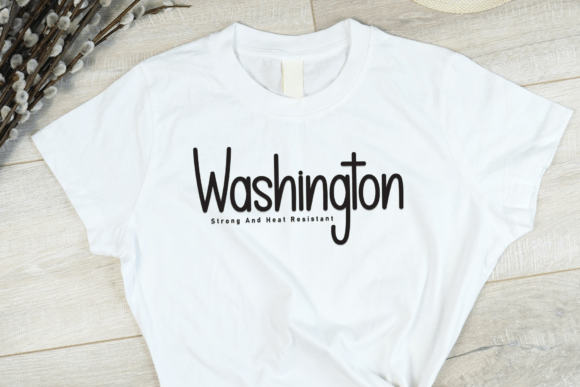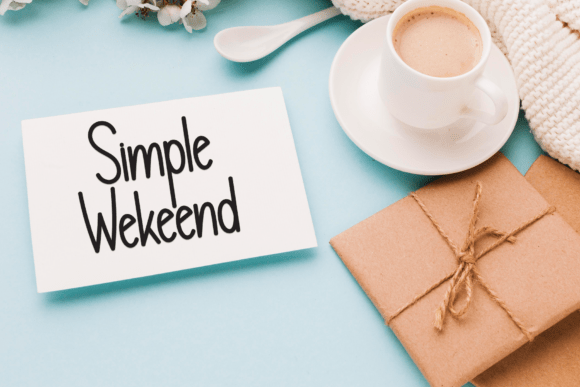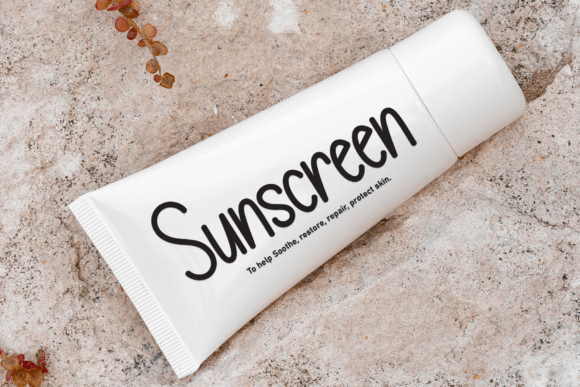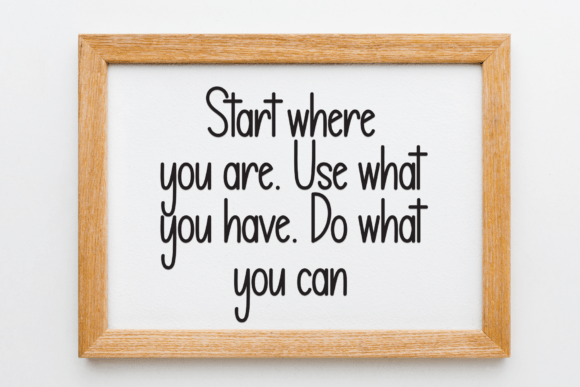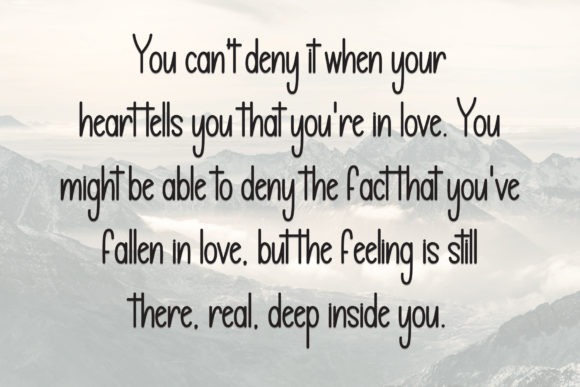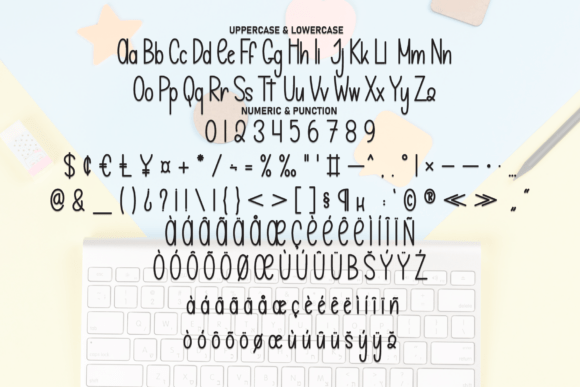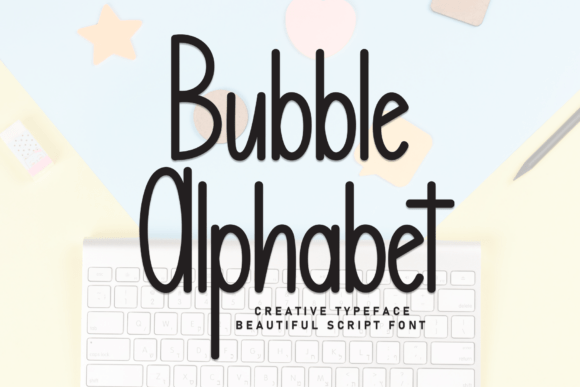
Where Whimsy Meets Warmth: Unveiling the Bubble Alphabet Font
Have you ever found yourself lost in a sea of blank paper, struggling to put your thoughts into words, only to be rescued by the perfect font? For designers, the quest for the perfect font is a never-ending journey, but what if we told you that your search is over? Enter the Bubble Alphabet Font, a delightful handwritten display font that embodies the perfect blend of simplicity and playfulness.
This charming font is not just a pretty face; it’s a valuable addition to any designer’s toolkit. Whether you’re crafting warm wedding invitations or heartfelt cards, the Bubble Alphabet Font adds a sprinkle of joy and fun to any design requiring a touch of whimsy. Its friendly strokes and playful charm make it an ideal choice for designers looking to add a personal touch to their creations.
Bubble Alphabet Font Key Features
- Unique Hand-Drawn Design: The Bubble Alphabet Font features a distinctive, hand-drawn style that gives it a playful and whimsical feel.
- Character Set: The Bubble Alphabet Font includes a comprehensive character set, including uppercase and lowercase letters, numbers, and punctuation marks, as well as special characters and symbols.
Bubble Alphabet Font Review
I recently had the chance to work with the Bubble Alphabet Font, and I must say it’s a unique and playful addition to any design project. ✨ One thing that immediately stood out to me is the fun and whimsical feel of the font. It’s perfect for creating engaging and attention-grabbing content, especially for children’s products or educational materials.
The font is highly customizable, allowing designers to adjust the size, color, and spacing to fit their specific needs. This level of control is a major plus, as it gives designers the flexibility to create a cohesive look and feel that aligns with their brand identity.
While the Bubble Alphabet Font is a great addition to any design project, there are a few limitations to be aware of. ⚠️ One major issue is that the font can be difficult to read at small sizes, making it best suited for larger-scale applications. Additionally, the font’s playful nature may not be suitable for more formal or professional projects.
Overall, I’m impressed with the Bubble Alphabet Font’s unique personality and customizability. While it may have some limitations, it’s a great option for designers looking to add a touch of whimsy and fun to their projects.
- Fun and playful feel
- Perfect for children’s products or educational materials
- Difficult to read at small sizes
- May not be suitable for formal or professional projects
The Bubble Alphabet Font is perfect for:
Children’s educational materials, such as worksheets and coloring books.
Party invitations and decorations.
Wedding stationery and decorations.